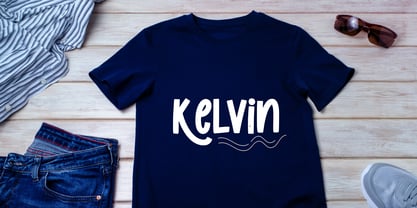
Rack Cute
by Sakha Design
The Rack Cute Font Family was designed by Alif Ryan Zulfikar and published by Sakha Design. Rack Cute contains 1 styles. More about this family
Rack Cute is a lively display font featuring playful and bold characters. Perfect for posters, packaging, and children’s designs, its whimsical style and vibrant energy make it ideal for projects requiring a fun and eye-catching appeal.
Designers: Alif Ryan Zulfikar
Foundry: Sakha Design